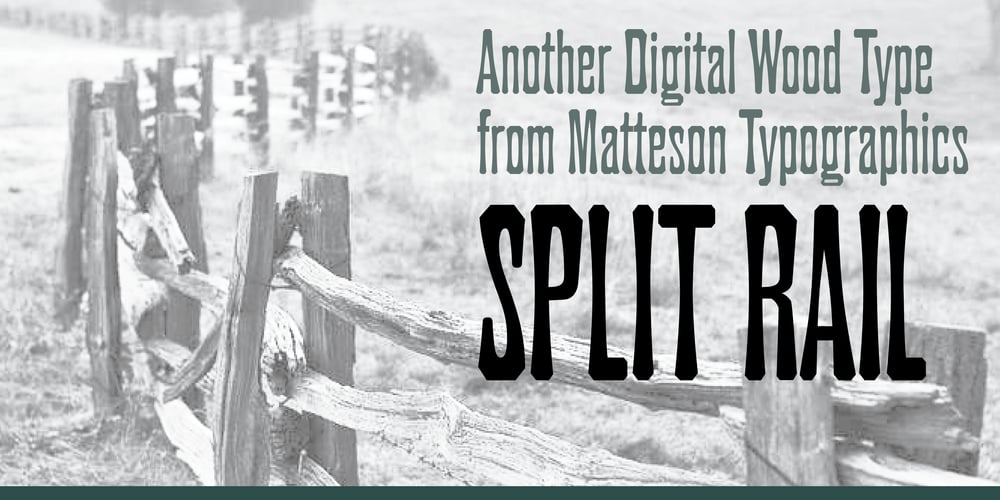
Split Rail Font Family was designed by Steve Matteson and published by Matteson Typographics. Split Rail contains 3 styles and family package options. Split Rail is an ultra-condensed gothic typeface based on William Page’s No. 142 designed in 1882. This revival has been re-imagined by Steve Matteson. The beveled stroke endings and flared stems impart a rugged texture akin to the angles of split rail fences found enclosing farmland and property of pioneer America. Useful for narrow headlines and logotypes, Split Rail speaks of rural landscapes and time gone by.